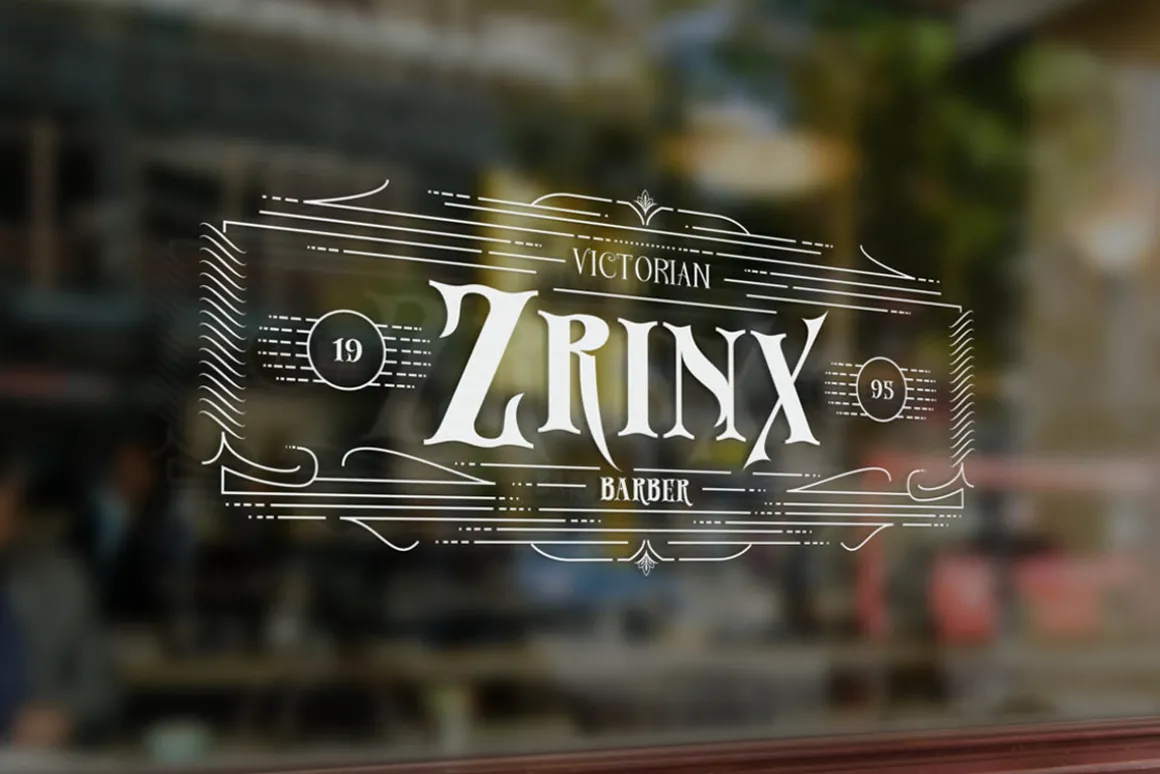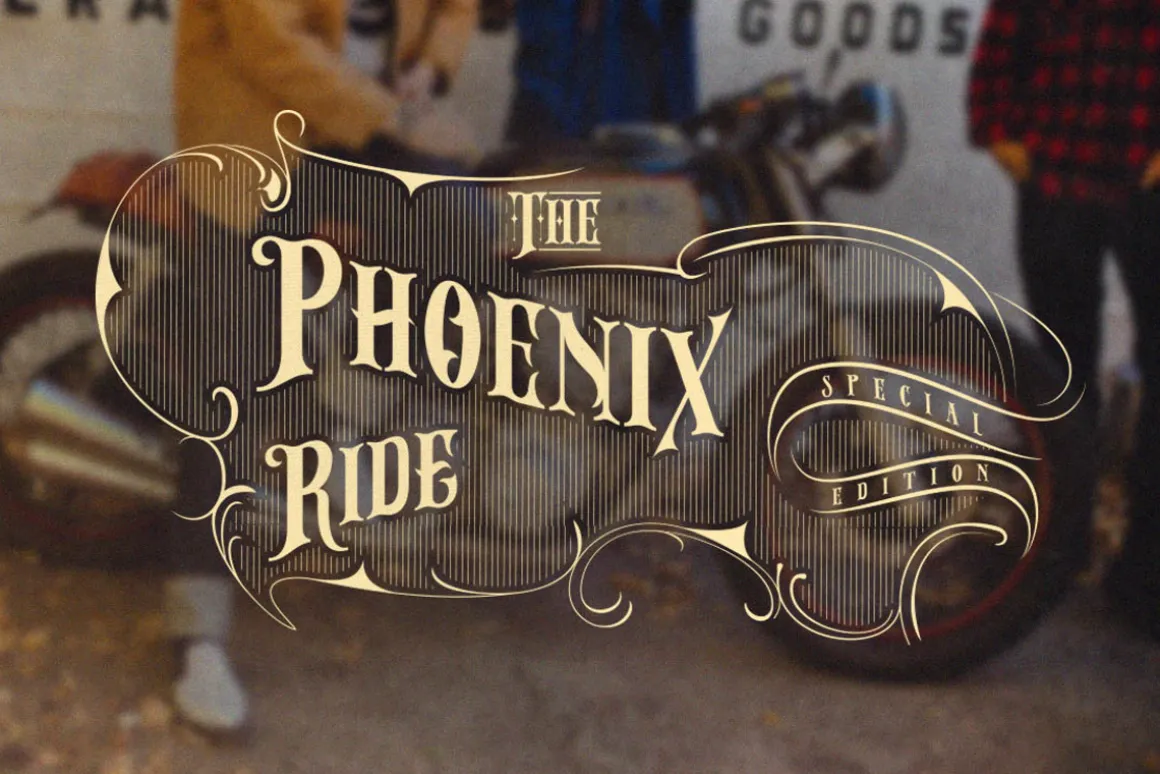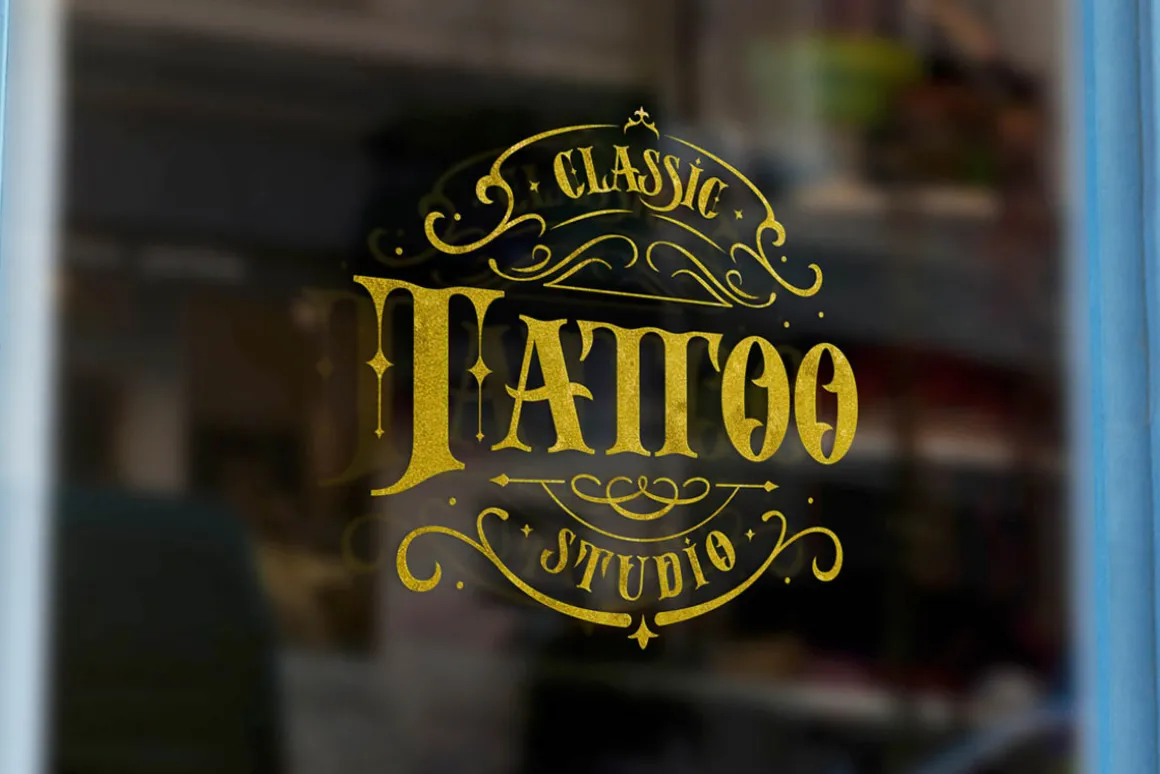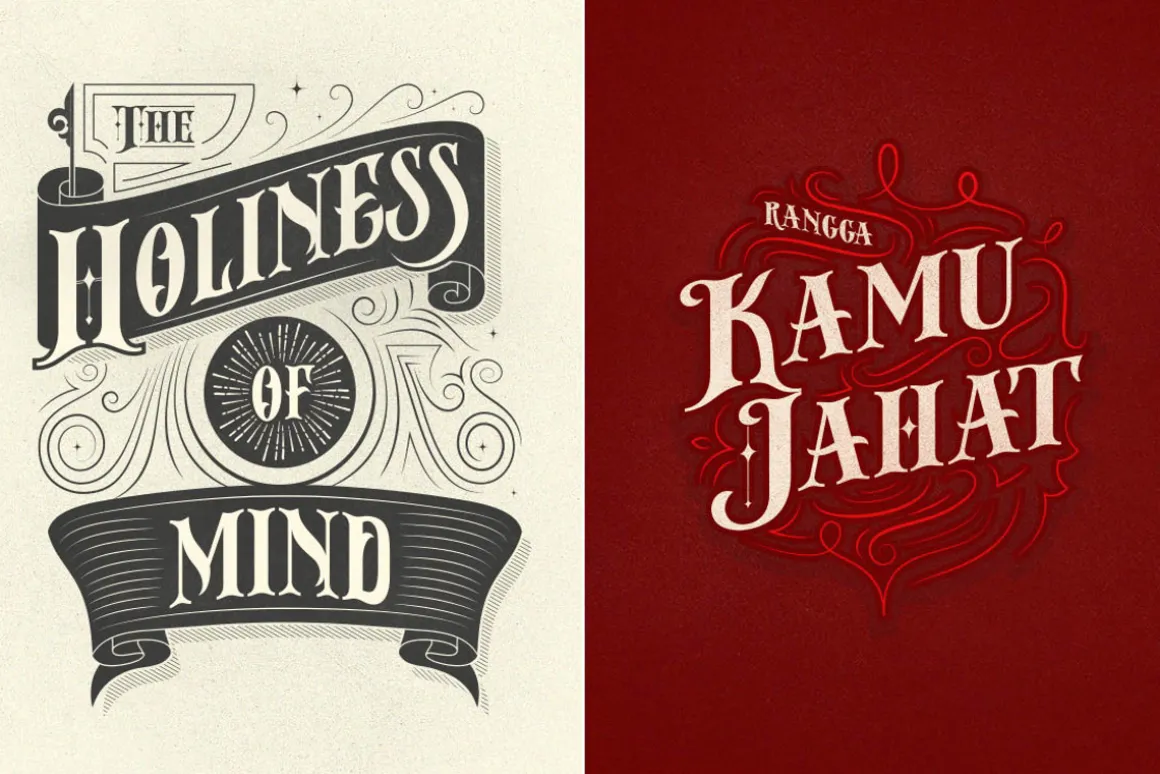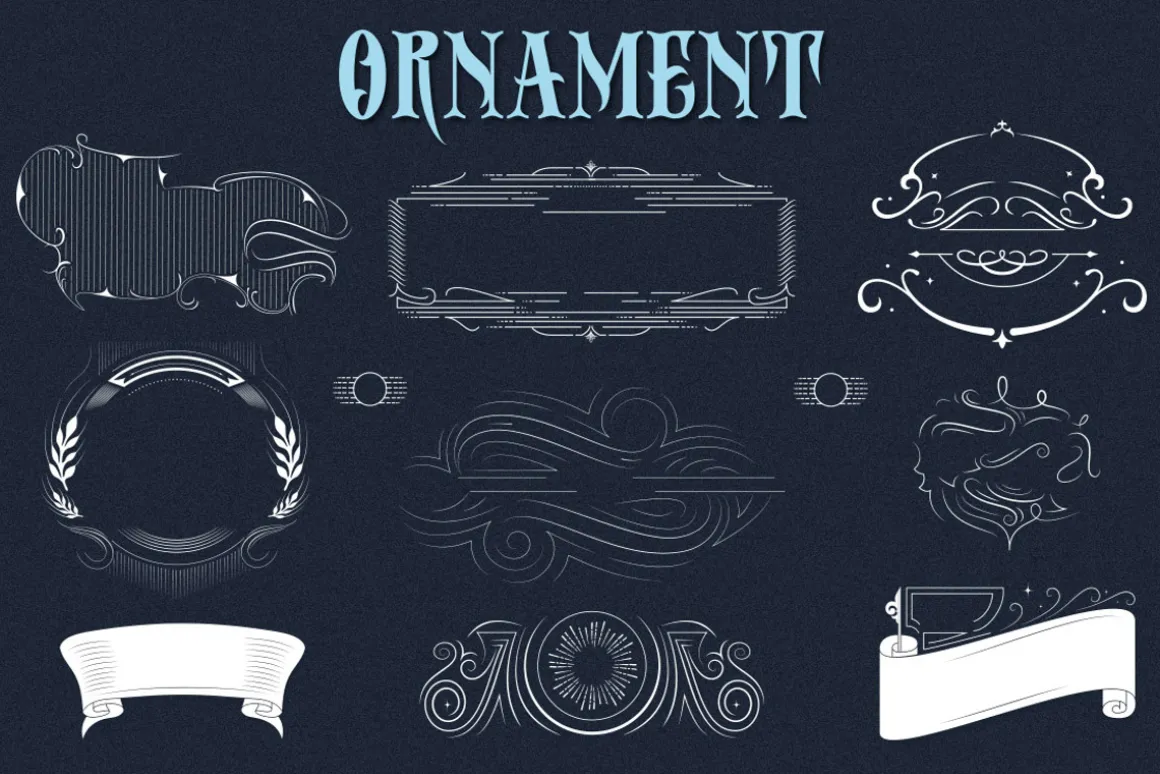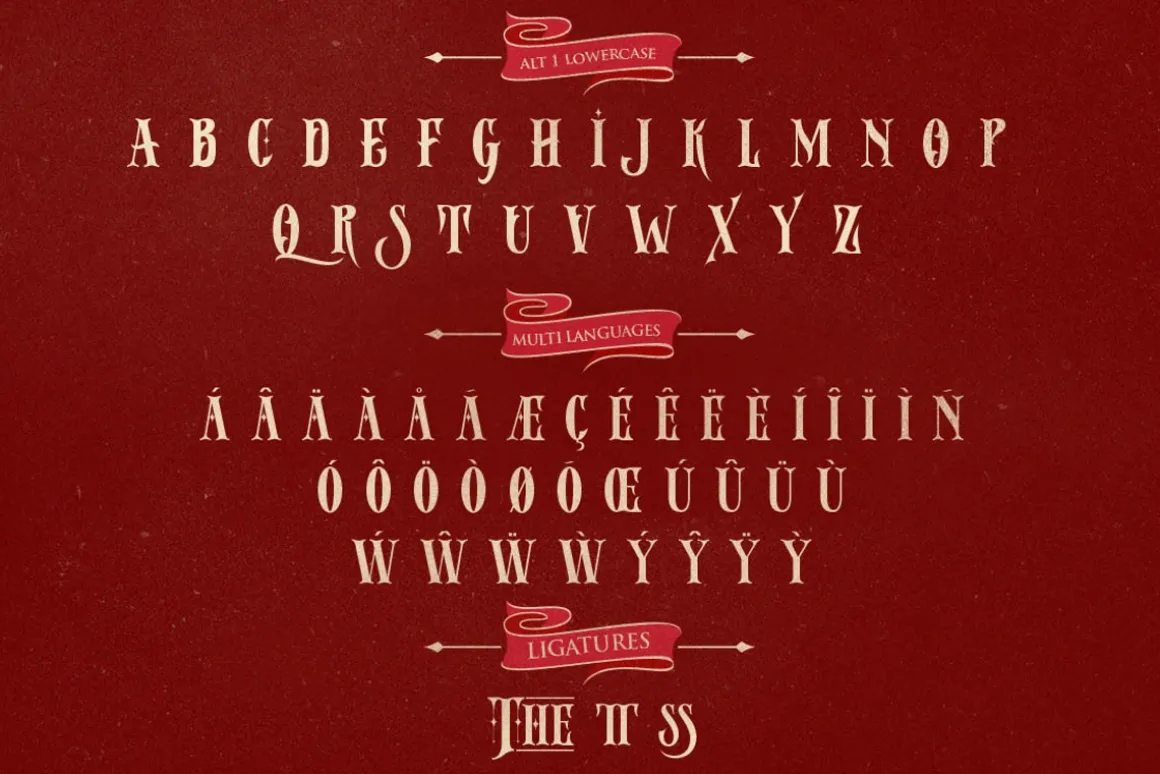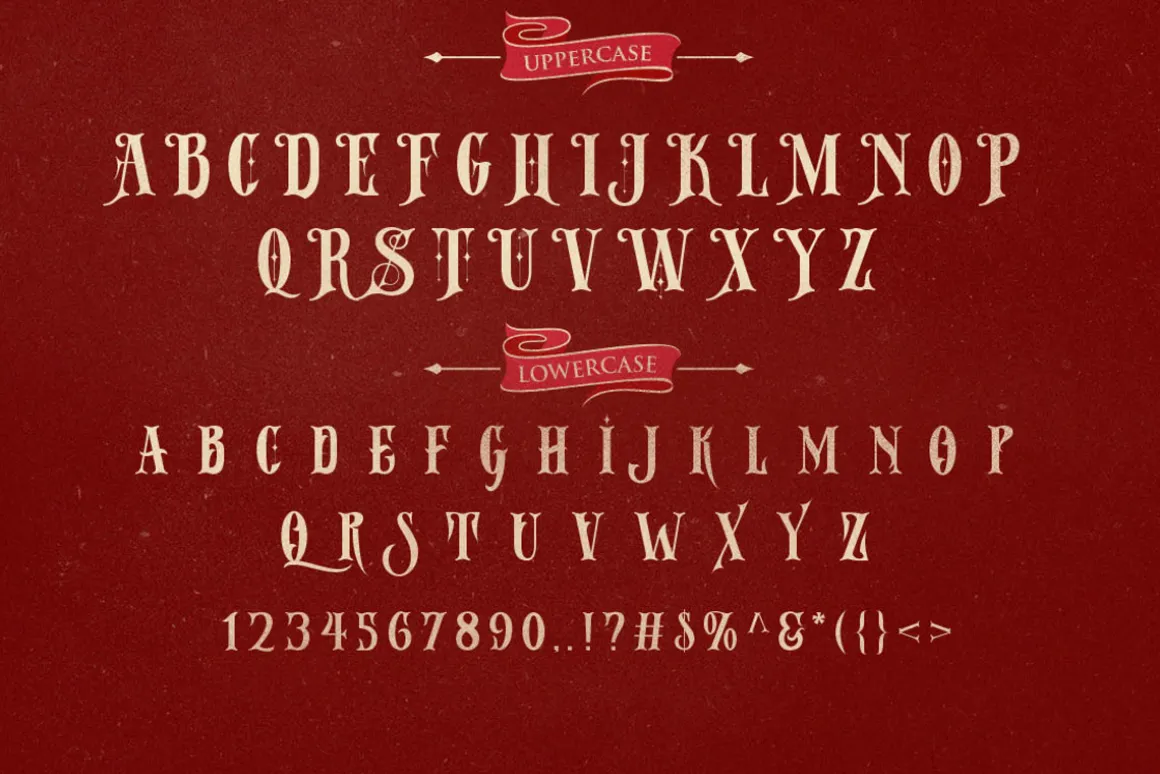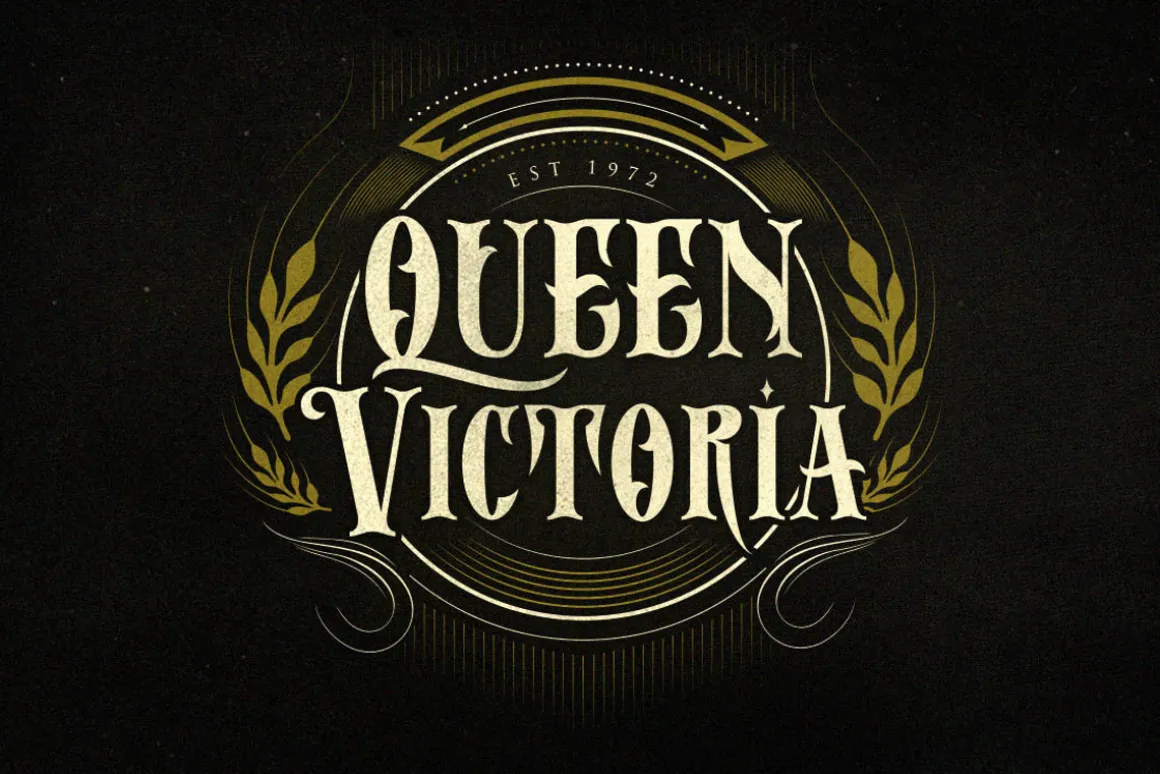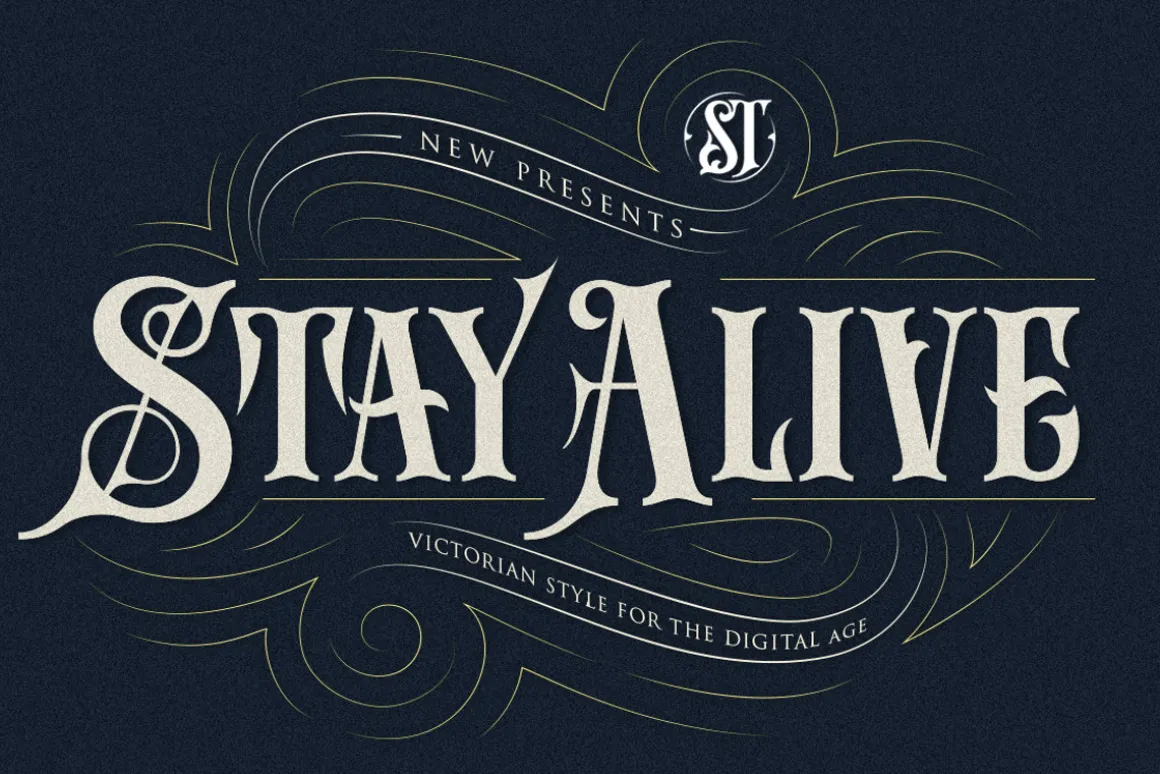
Stay Alive Typeface is Inspired by victorian style, poster, sign painter, 1800s bring classic touch on this decade, which is combining modern and classic typography with some awesome features that have a strong shapes so it will create more attention for people to look more closely.
You can use this font for various purposes.such as logo, t-shirt, posters, lable, letterhead, book cover, and many more.